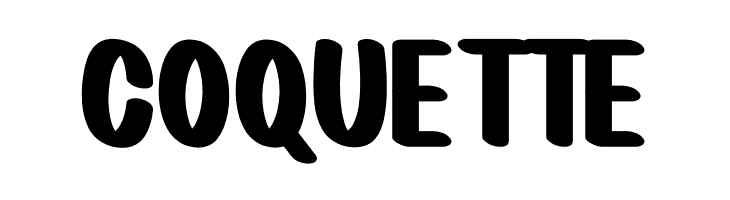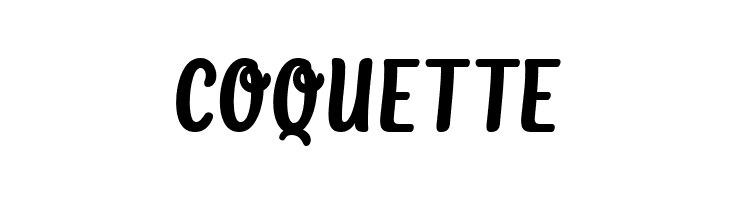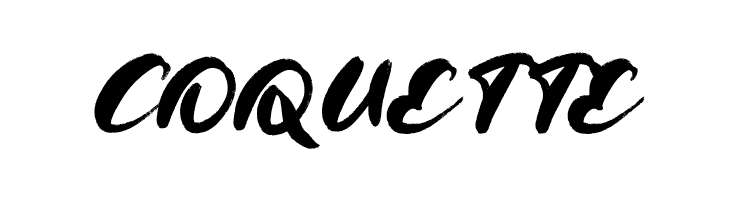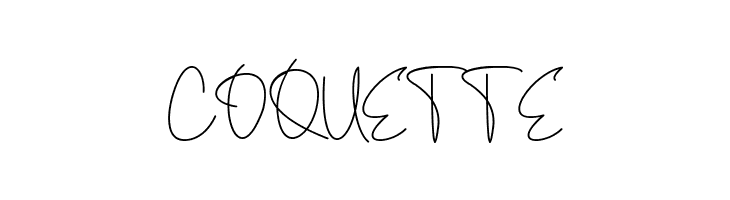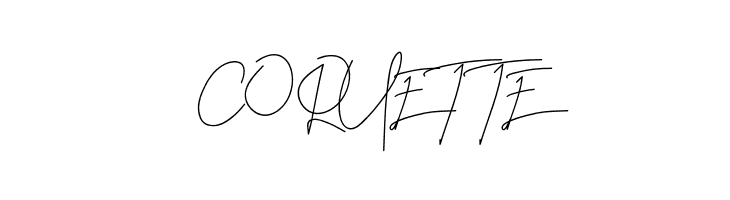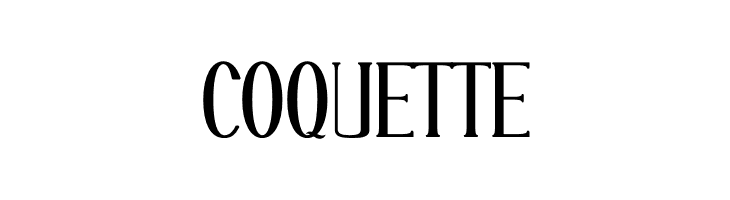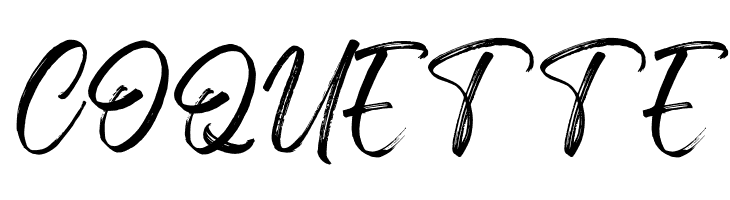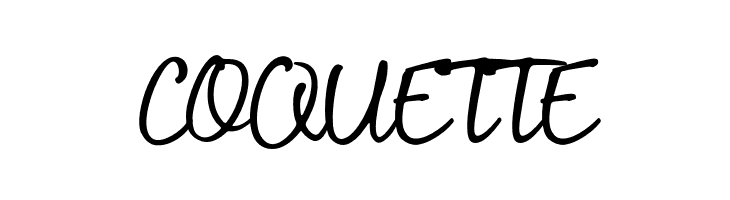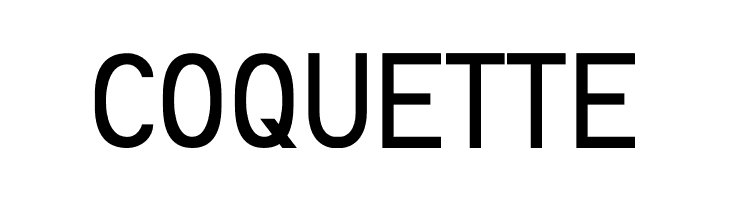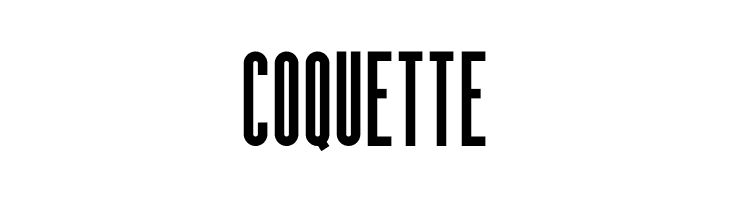
A bold, playful font with exaggerated, uneven strokes and a cartoonish feel.
A modern, clean sans-serif font with geometric shapes and consistent stroke width.
A bold, hand-painted style font with a textured, brushstroke appearance.
A modern, geometric sans-serif font with a clean and bold appearance.
A bold, geometric font with a distressed, industrial texture.
A modern, geometric font with sharp angles and a dynamic style.
A flowing, cursive script font with elegant curves and a handwritten style.
A graceful and elegant script font with flowing, cursive lines.
A bold, playful font with rounded edges and a slightly condensed style.
A sleek, modern italic font with smooth, light strokes and excellent readability.
A sleek, modern, light italic font with smooth, consistent strokes.
A bold, expressive script font with fluid, connected strokes.
A bold, modern sans-serif font with clean lines and a strong presence.
A bold, brush-style font with an energetic and dynamic appearance.
A playful, rounded font with bold, smooth curves and a friendly appearance.
A graceful and elegant script font with fluid, cursive strokes.
A flowing, cursive script font with elegant, connected strokes.
A bold, decorative font with a three-dimensional effect and vintage-modern aesthetics.
A playful and elegant script font with a handwritten feel.
A bold, flowing script font with a lively and energetic style.
Finance-themed dingbat font with hand-drawn illustrations.
A bold, hand-drawn font with a playful and energetic style.
A playful, bubbly font with rounded, thick strokes and a whimsical touch.
A bold and robust font with thick strokes and a strong presence.
A modern, extra light sans-serif font with clean lines and balanced spacing.
A classic serif font with elegant, elongated strokes and high contrast.
A lively, cursive font with interconnected characters and varied stroke thickness.
A bold, expressive handwritten font with dynamic brush-like strokes.
A classic serif font with elegant strokes and balanced proportions.
A playful, handwritten font with fluid, continuous strokes and a casual vibe.
A fluid and artistic handwritten font with expressive strokes.
A bold, tall, and narrow font with a modern and impactful style.